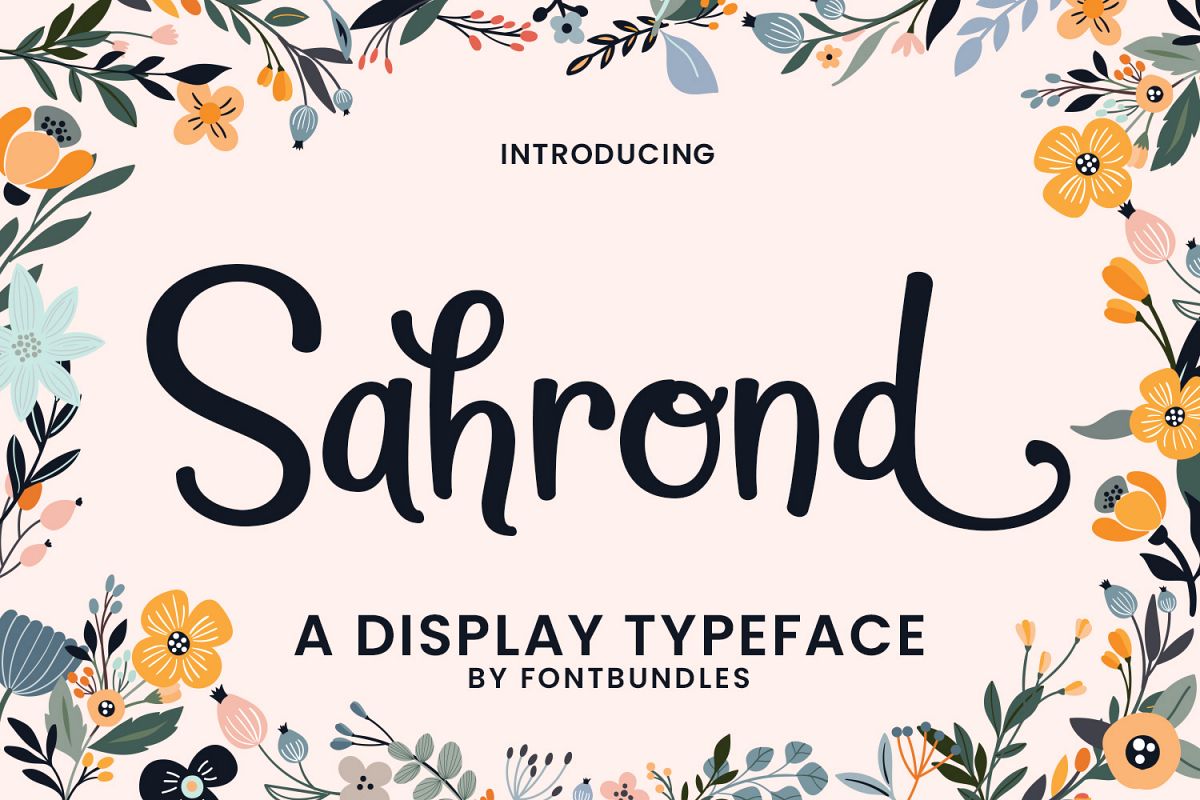
Sahrond is a display typeface. Perfect for display, poster, name card, business card, branding, logo, merchandise, packaging, florist, wedding needs and many more.